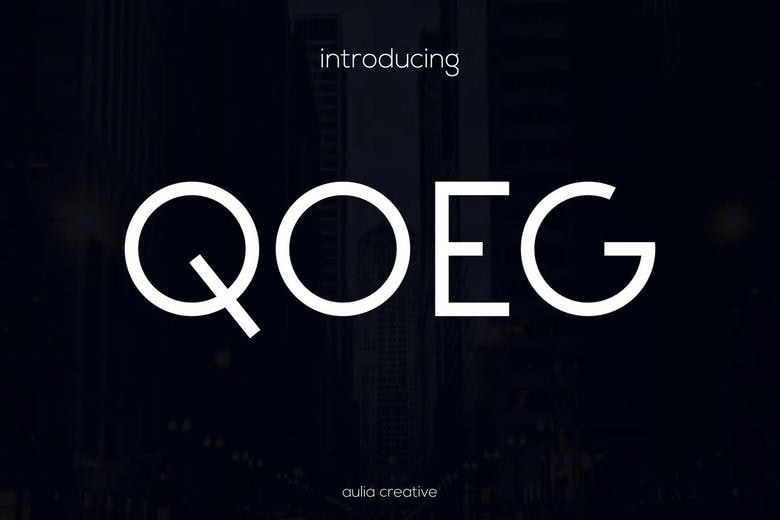
Qoeg Font
Qoeg Font Sans Display Logo Font is a great and realistic display font. This typeface is ideal in classy logos, branding, travel promotions, layout magazines, beauty products, product packaging, quotes or just a classy text overlay on any background image.
Qoeg Sans Serif Font